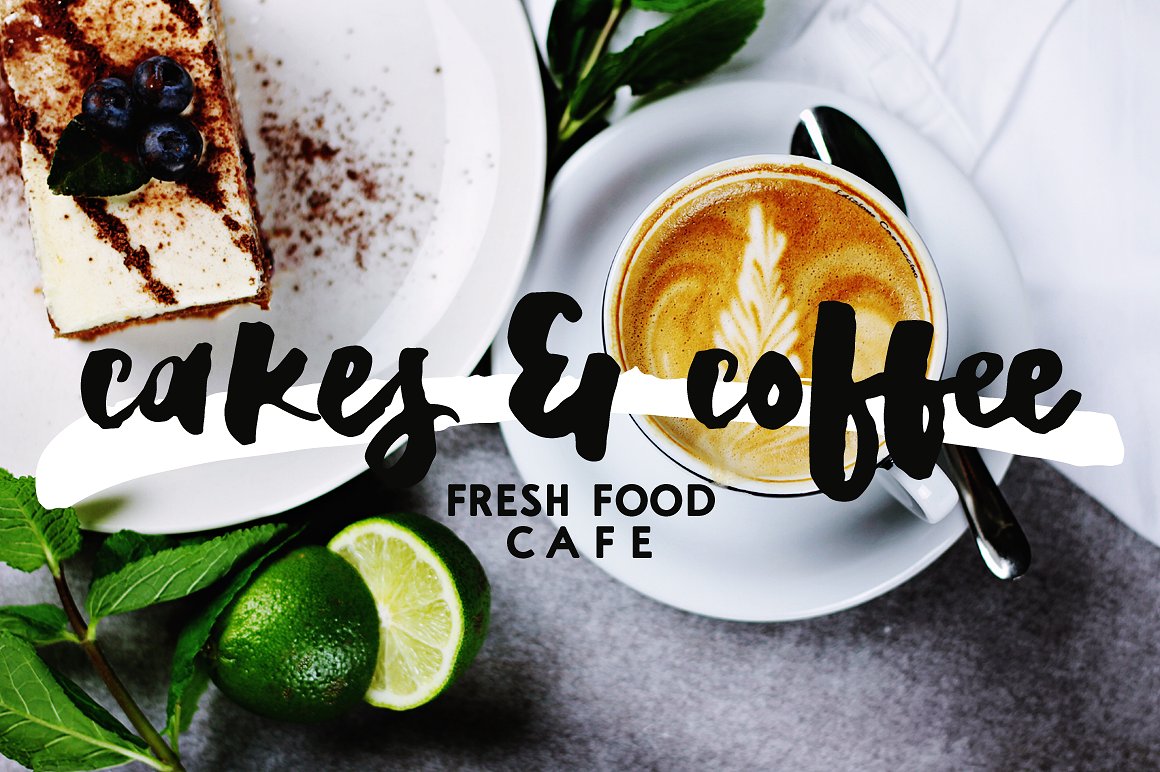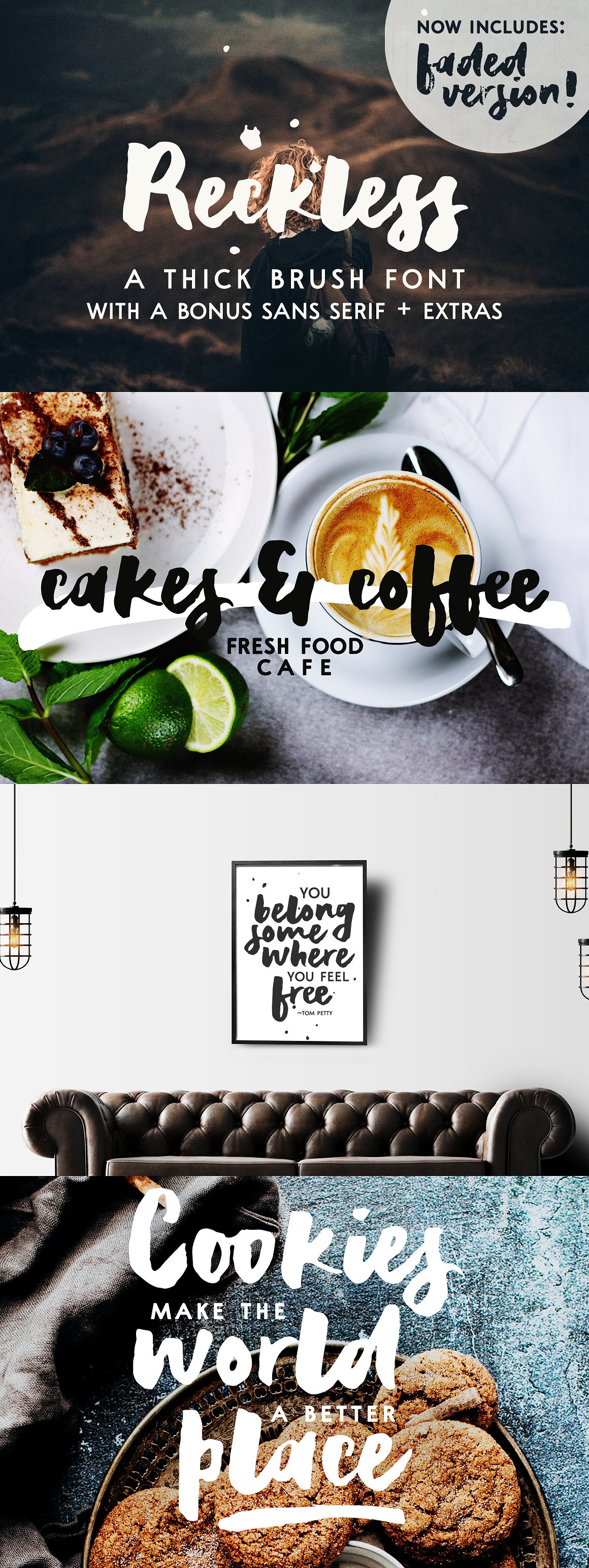
Reckless Brush
Reckless Brush Font
Reckless | a thick brush font
Reckless is a thick brush font with rough edges. It’s perfect to make a statement and will look great in quotes, logos, titles, postcards, tags.
Reckless is a thick brush font, with:
– A-Z, a-z, 0-9, accents, punctuation and symbols
– Ligatures
– Bonus! sans serif font
– Bonus! set of splatters and swashes